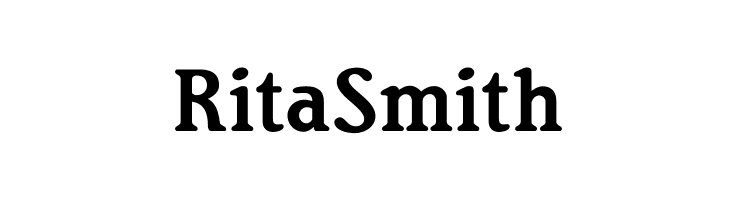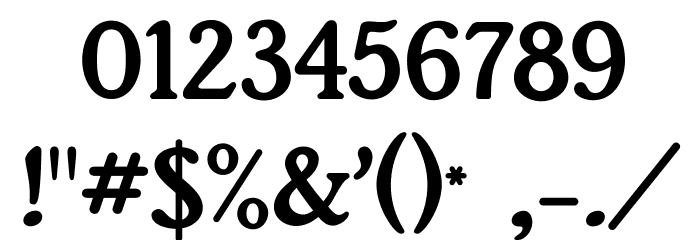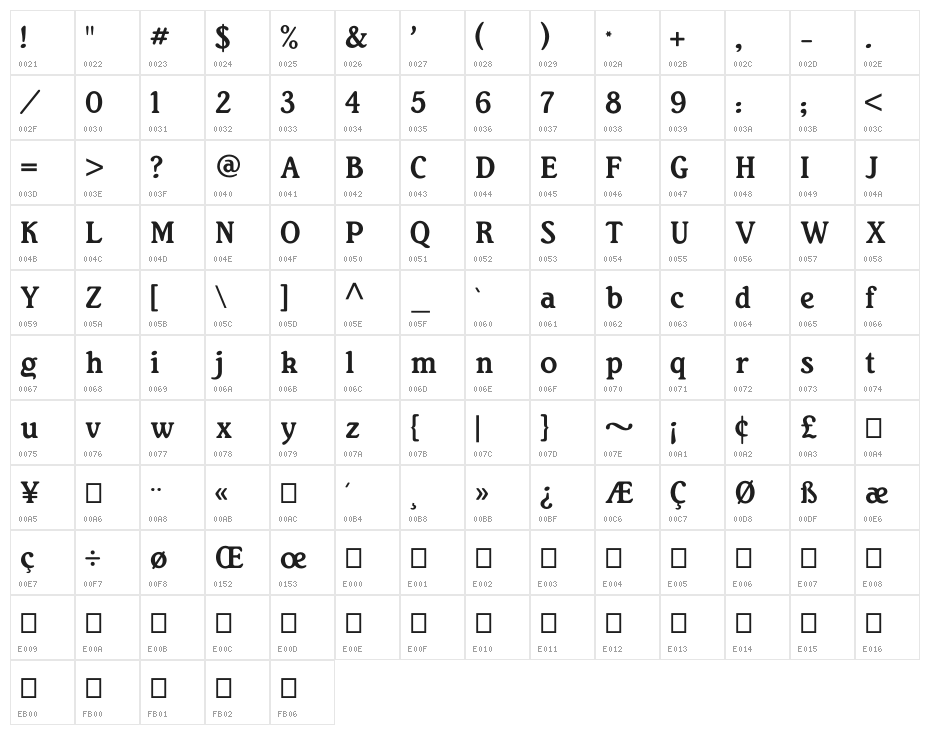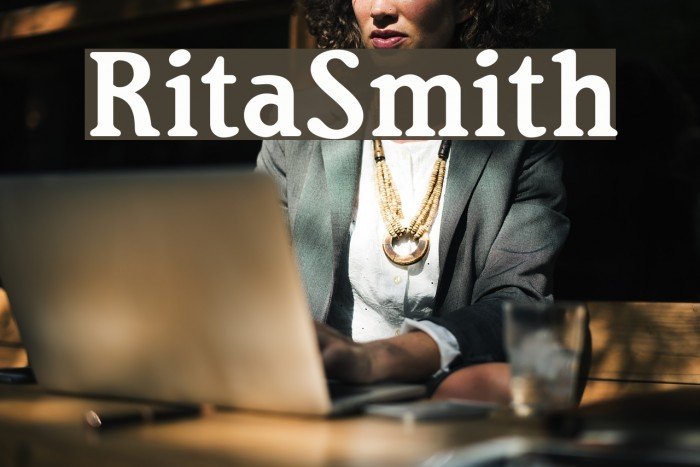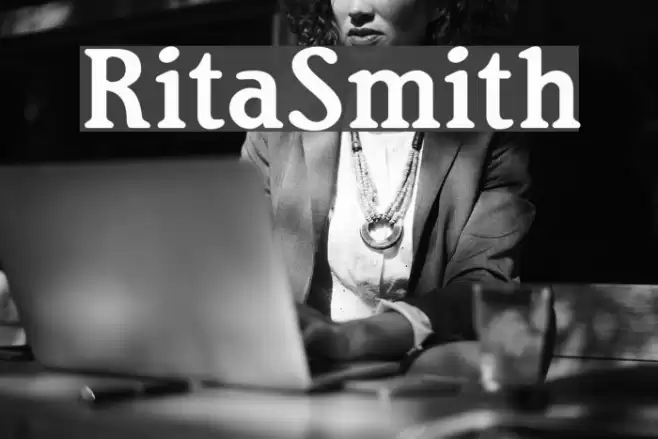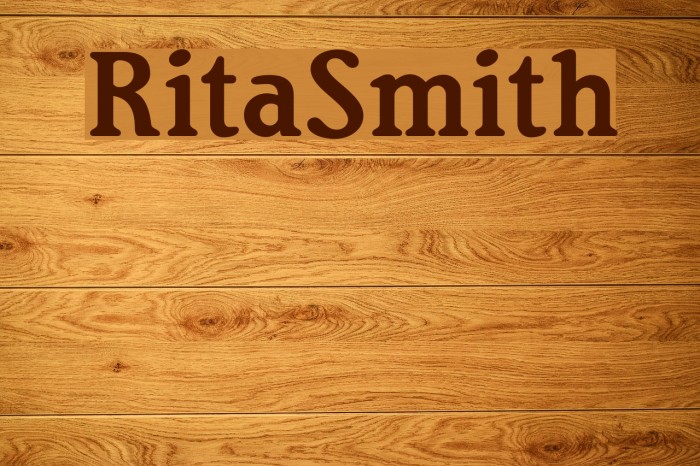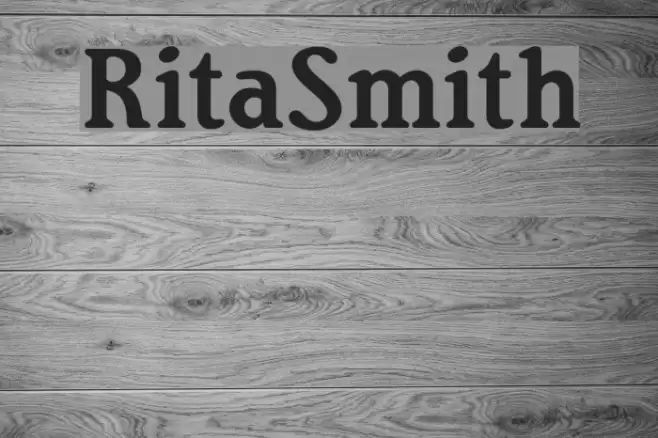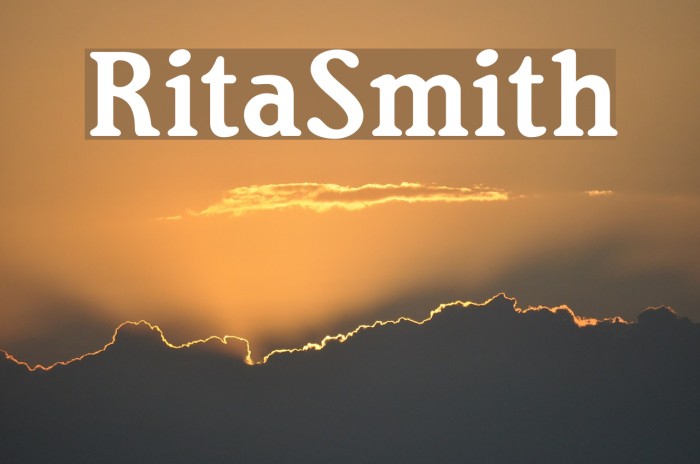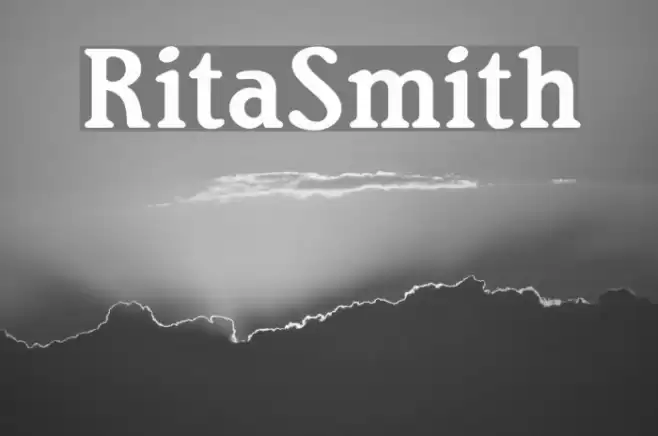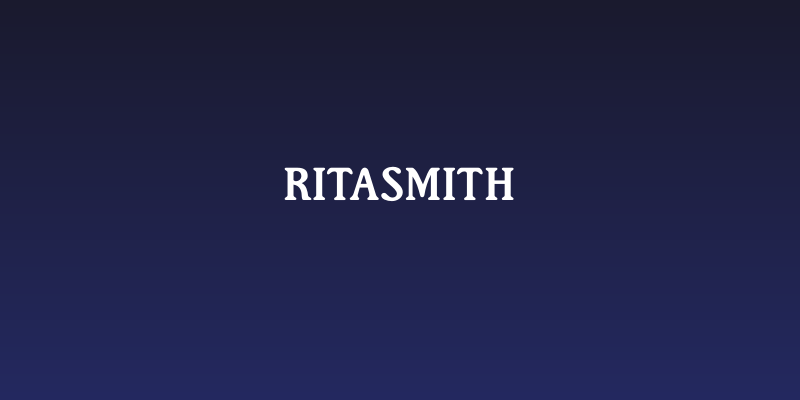
RitaSmith Font
RitaSmith Description
This font features a classic serif style with a strong presence and elegant curves. The uppercase letters are bold and commanding, while the lowercase letters maintain a consistent flow with subtle serifs that add a touch of sophistication. The numerals are clear and easy to read, making them suitable for various applications. Special characters are well-defined, ensuring versatility in design projects. The overall appearance is balanced, with medium contrast in stroke thickness, providing a harmonious blend of tradition and modernity.
| Proposed Projects | This font is perfect for editorial design, book covers, formal invitations, and branding projects that require a touch of elegance and tradition. |